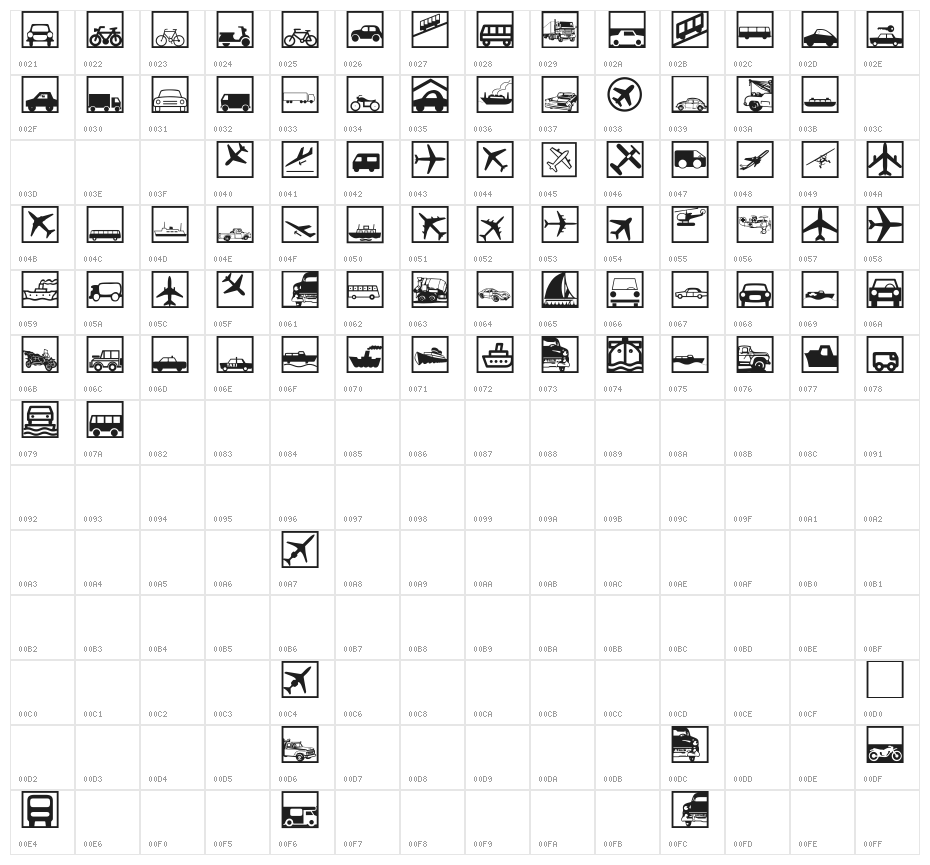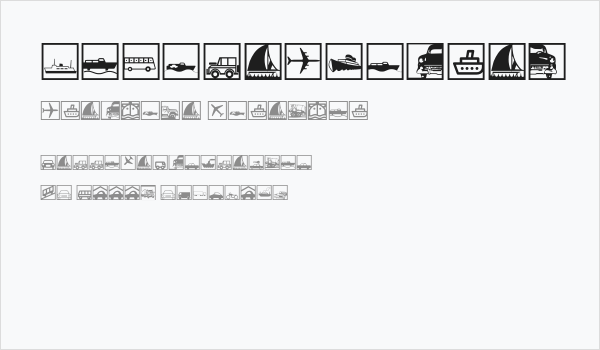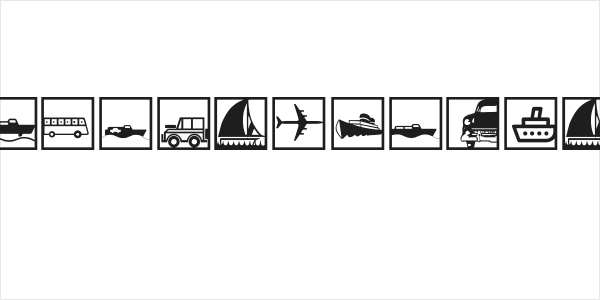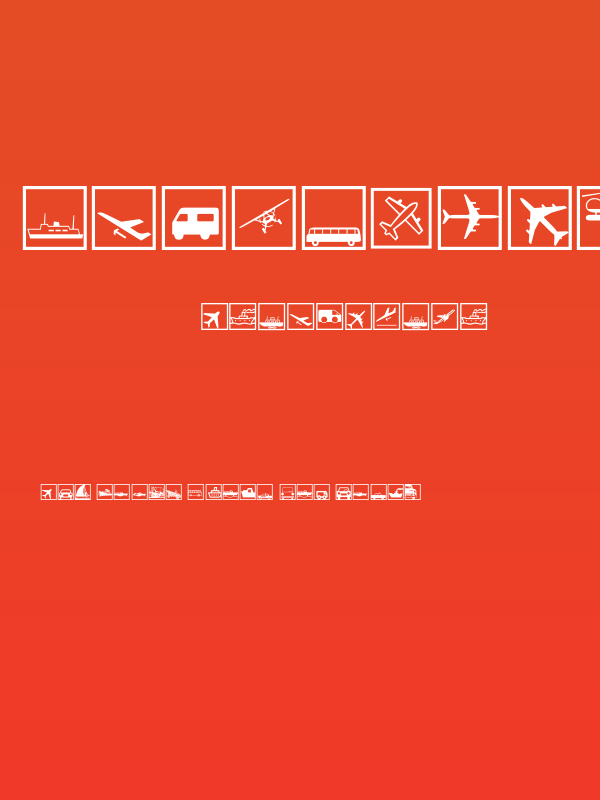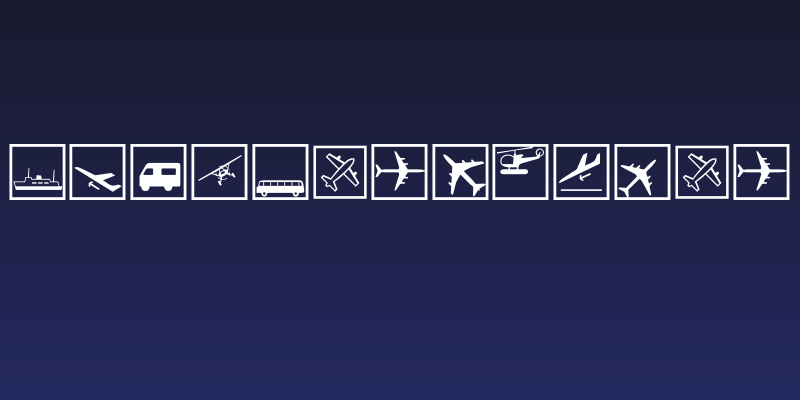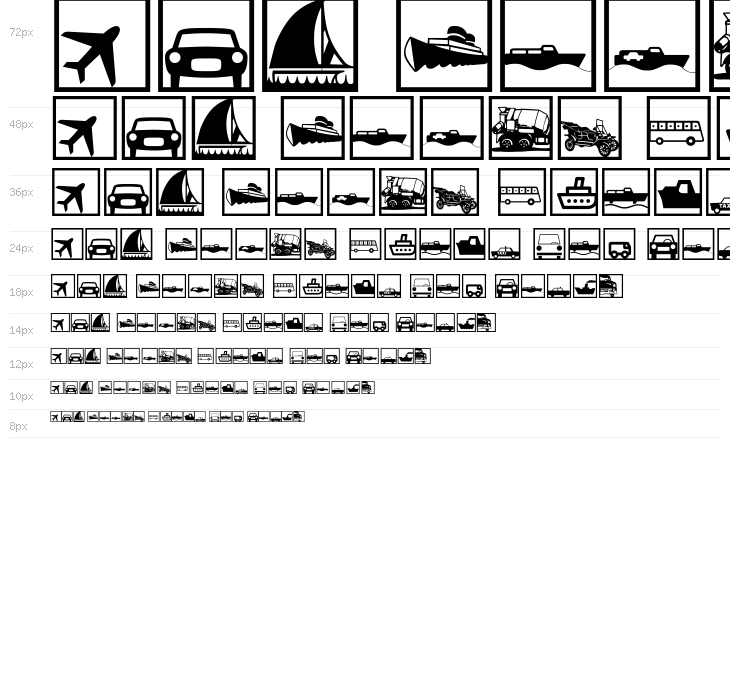
MobileSquares Font
MobileSquares Description
A pictogram-style dingbat font featuring various transportation icons, including cars, airplanes, buses, boats, motorcycles, and bicycles, each enclosed in a square frame with bold, high-contrast black and white silhouettes.
Overall StyleDecorative, Modern, Pictogram
Use CaseIcons, Infographics, Signage, Themed designs
Proposed ProjectsTransit maps, travel brochures, signage, infographics, educational materials, mobile apps, and transportation websites.